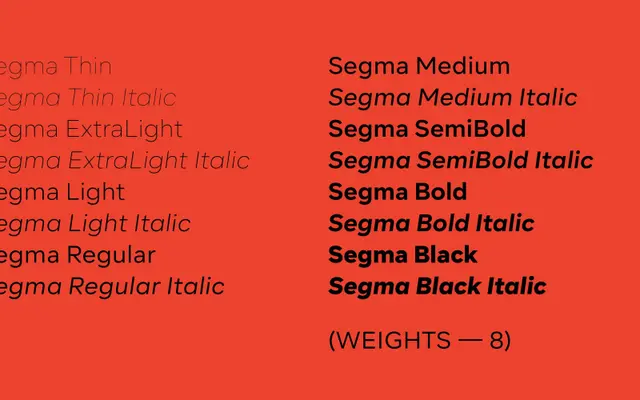
Segma
The Designers Foundry · Christoph York
A geometric sans-serif in eight weights with matching italics, drawn by Christoph York with circular forms and open apertures for comfortable reading across branding and text use.
Built on circular geometry with low-contrast strokes, Segma sits in the broader geometric sans tradition while leaning towards contemporary utility rather than strict revival. Open apertures keep it readable at text sizes, and the full 16-style family, spanning Thin to Black with matching italics, gives it decent range for identity and editorial work. Stylistic alternates for 'a', 'j', 'y' and 't' allow some personality adjustment, and OpenType support covers tabular figures, case-sensitive forms and a slashed zero.
Segma is built on circular geometry with low-contrast strokes and open apertures, placing it squarely in the geometric sans tradition, though the foundry notes it retains contemporary utility rather than strict historical revival.